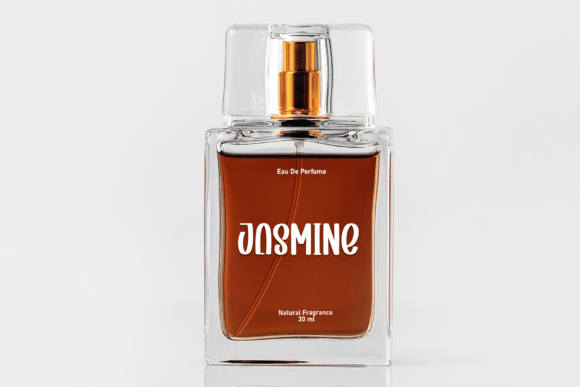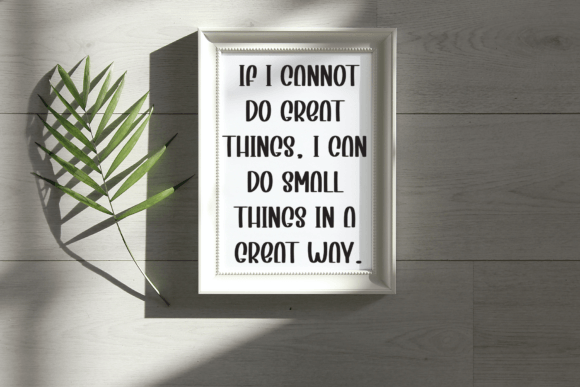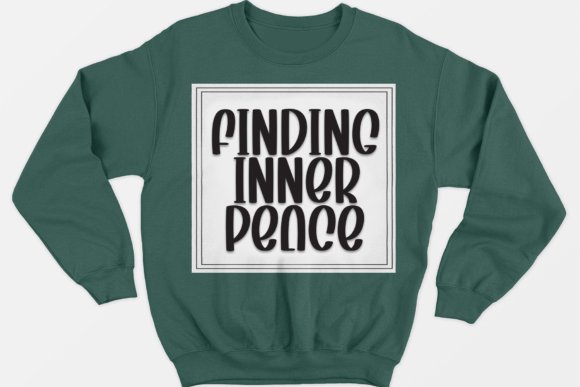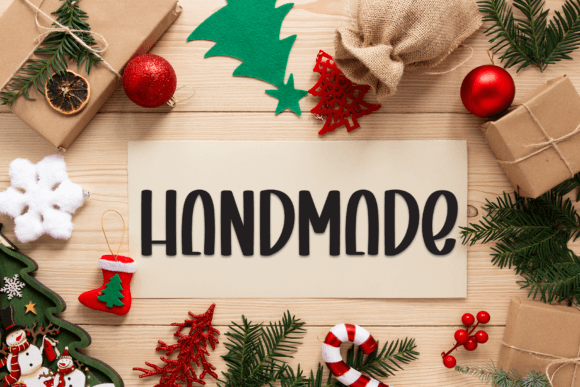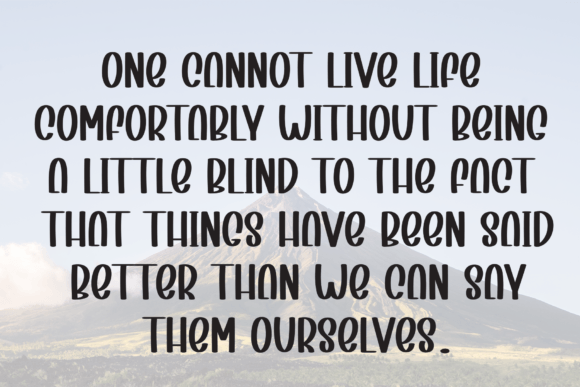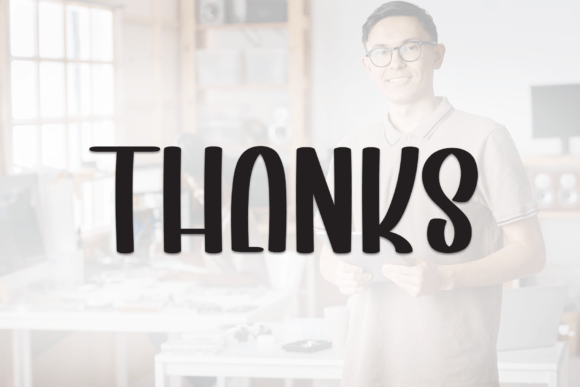
Introduction to Millennial Jasmine Font Font
Fonts play a crucial role in design, and the Millennial Jasmine Font font is a typeface that brings both character and versatility to any project. Whether you’re working on a branding project, a website, or a print design, the Millennial Jasmine Font font offers a unique style that can elevate your work.
Millennial Jasmine is a sweet and friendly handwritten font.
Key Features of Millennial Jasmine Font Font
Why Choose Millennial Jasmine Font Font?
The Millennial Jasmine Font font is more than just a typeface – it’s a design tool that helps you communicate your message with style and clarity. Its unique character set and versatile design make it suitable for a wide range of applications, from elegant invitations to bold headlines.
With its carefully crafted letterforms and balanced proportions, the Millennial Jasmine Font font ensures readability and visual appeal across all mediums.
What makes Millennial Jasmine Font font special?
The Millennial Jasmine Font font stands out with its unique design, exceptional readability, and versatility across various design applications.